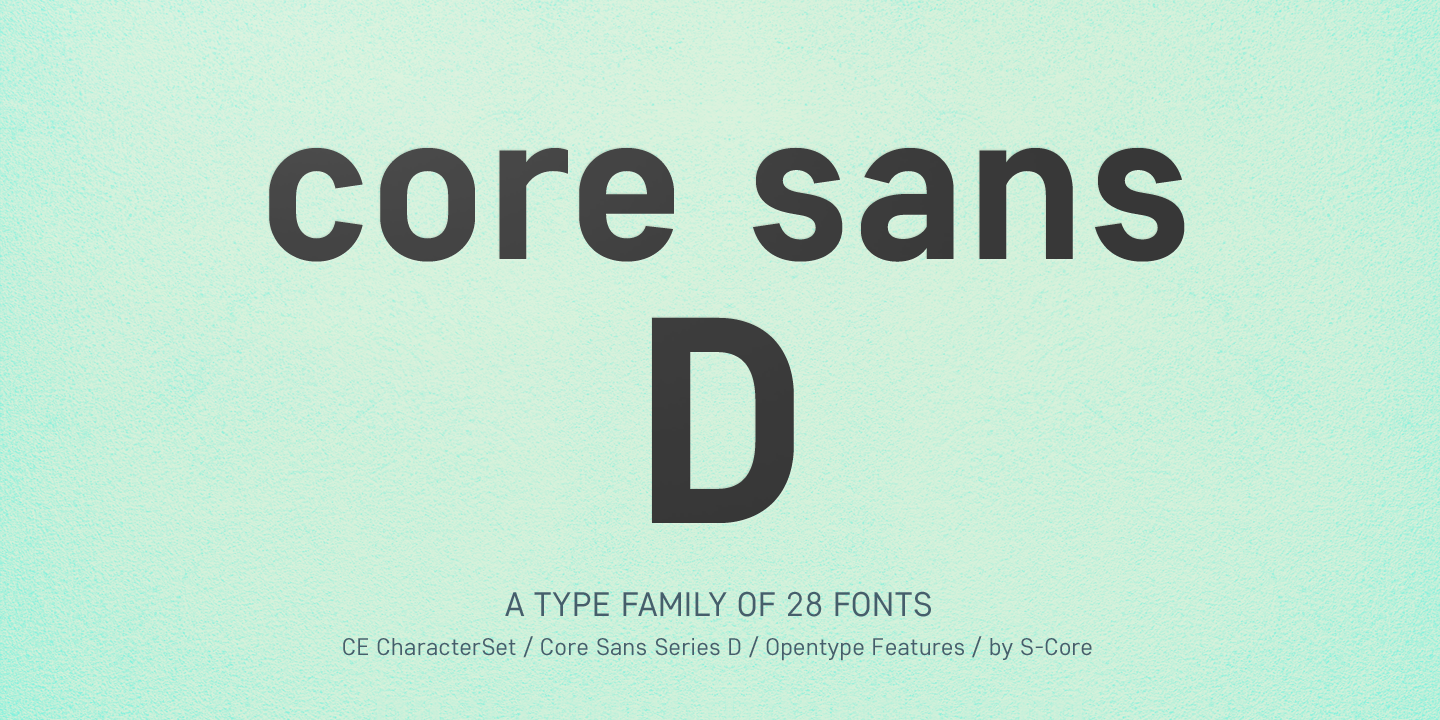
Core Sans D Font is perfect for essential corporate branding, fundamental business communications, core system documentation, primary interface design, basic institutional materials, foundational marketing campaigns, central organizational identity, principal signage systems, primary digital typography, and fundamental brand applications. This essential typeface creates authentic foundational atmosphere in both corporate print and digital business platforms.
What makes Core Sans D Font exciting is its fundamental design excellence that provides essential typographic foundation with maximum versatility and systematic reliability. The font features core letterforms with foundational proportions and essential character details that serve as the backbone for comprehensive design systems. Its systematic design establishes an atmosphere of organizational reliability and fundamental excellence that resonates with businesses seeking authentic core typography and systematic brand foundation.
Core Sans D Font family includes essential variations: Light, Regular, Medium, Bold, and System versions, each with foundational alternates and core character sets. Each variant maintains the font's fundamental personality while providing designers with essential options for creating systematic typography hierarchies and foundational communication systems.
This exceptional foundational typeface brings authentic systematic credibility to projects requiring essential presentation. Whether you're designing core branding, fundamental interfaces, or systematic marketing materials, Core Sans D Font Free Download delivers outstanding reliability and systematic sophistication. The font's foundational proportions and essential details ensure optimal performance across various fundamental applications.
Corporate organizations and system designers recognize how Core Sans D Font perfectly provides the essential foundation for comprehensive design systems and organizational identity. Its systematic foundation combined with fundamental reliability makes it essential for core branding and systematic design projects. Download today and establish your designs with this exceptionally reliable foundational typography.